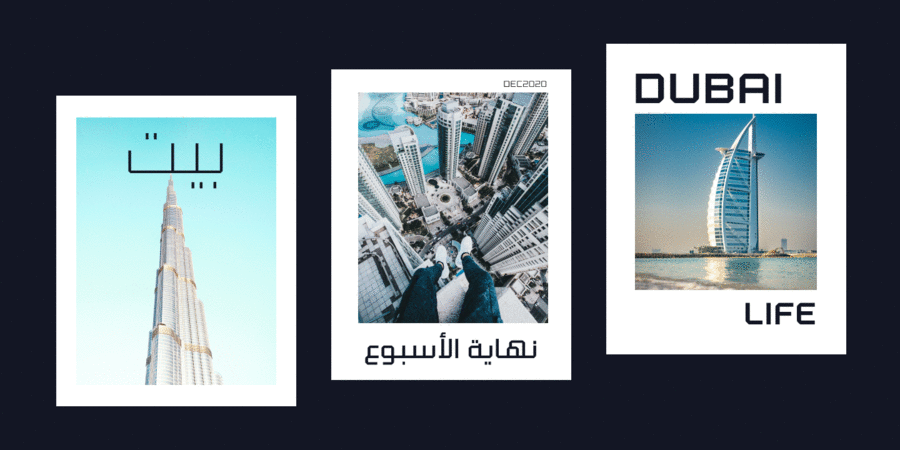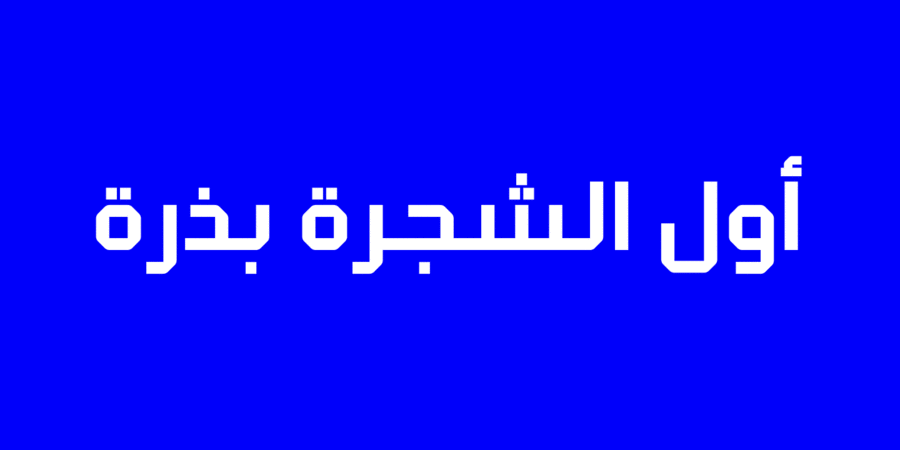
About Klapt ArabicA modular geometric sans serif family that is soft on the outside and sharp on the inside. It is based on the Arabic Kufic style. Klapt Arabic can be bold or very elegant and is well suited for designs ranging from branding and corporate identity to editorial design or web design. It has a timeless style and is great for display purposes, especially for headlines, posters, magazines, book covers, logos... This font family of four weights includes an extended character set supporting most Latin languages and extended Arabic, including Persian and Urdu. Feel free to share your designs using Klapt Arabic or just get in touch via email to hi@seventype.com. Klapt Arabic is the extension of Klapt. The typeface was designed by Vitória Neves in 2020.